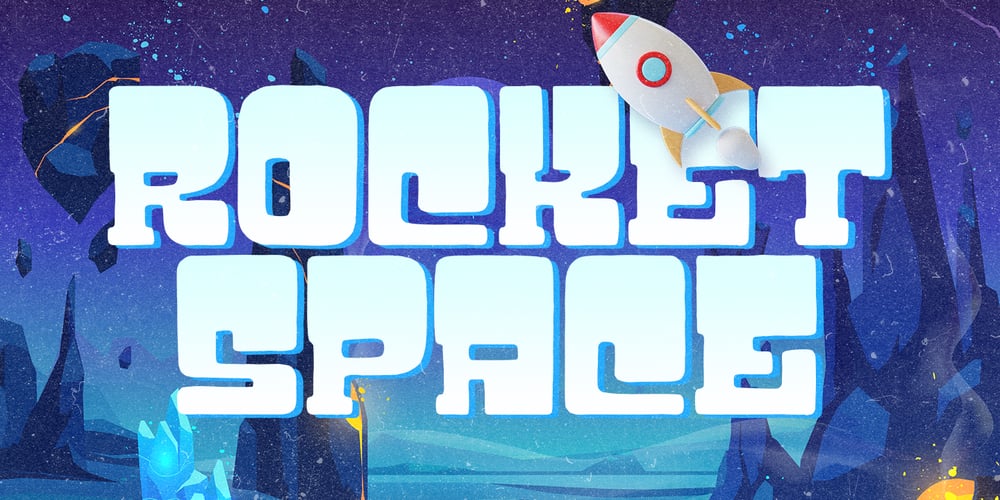
Rocket Space
Rocket Space font
Rocket Space Font Family was designed by Fajar Gunawan and published by Fargun Studio. Rocket Space contains 1 styles and family package options. Rocket Space is unique and fun display font, It embodies playfulness and authenticity and is the perfect choice for a label, book cover, children’s book, comic, poster, banner, packaging, merchandise, logotype, and much more.